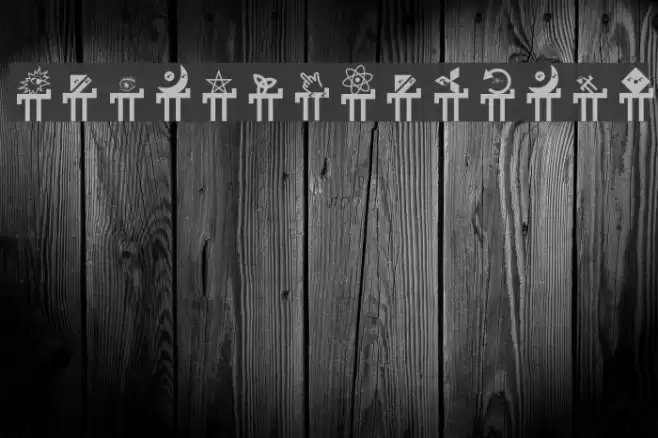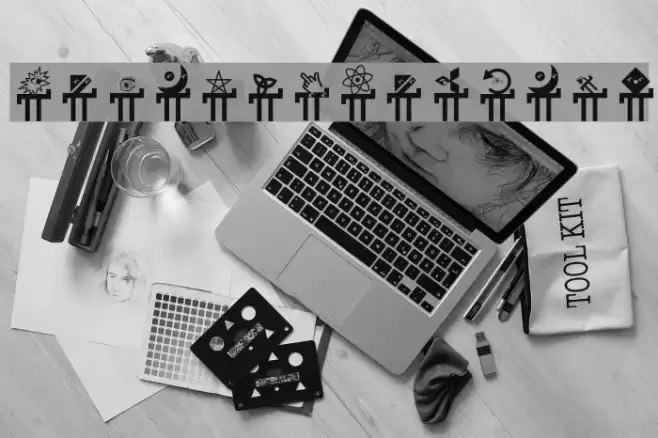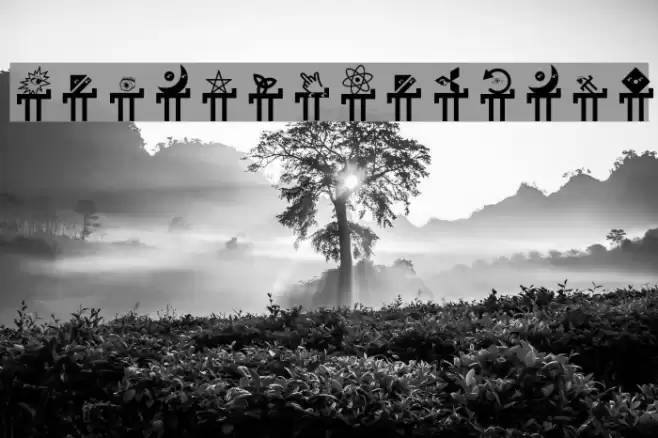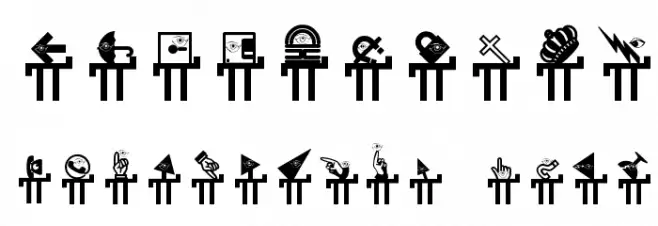
HypocriSymbols Font
HypocriSymbols Description
This is not a valid font. The image contains a series of unique symbols and icons that are not representative of a traditional alphabet or numeric system. Each symbol appears to be a combination of abstract shapes and figures, making it more of an artistic or decorative set rather than a functional typeface. These symbols are likely intended for use in graphic design or artistic projects rather than for text communication.
A collection of artistic symbols, not a functional font from Uncategorized fonts.
- Proposed Projects: Graphic design, artistic projects, decorative elements.
- Overall Style: Artistic, Decorative
- Use Case: Decorative elements, Graphic design